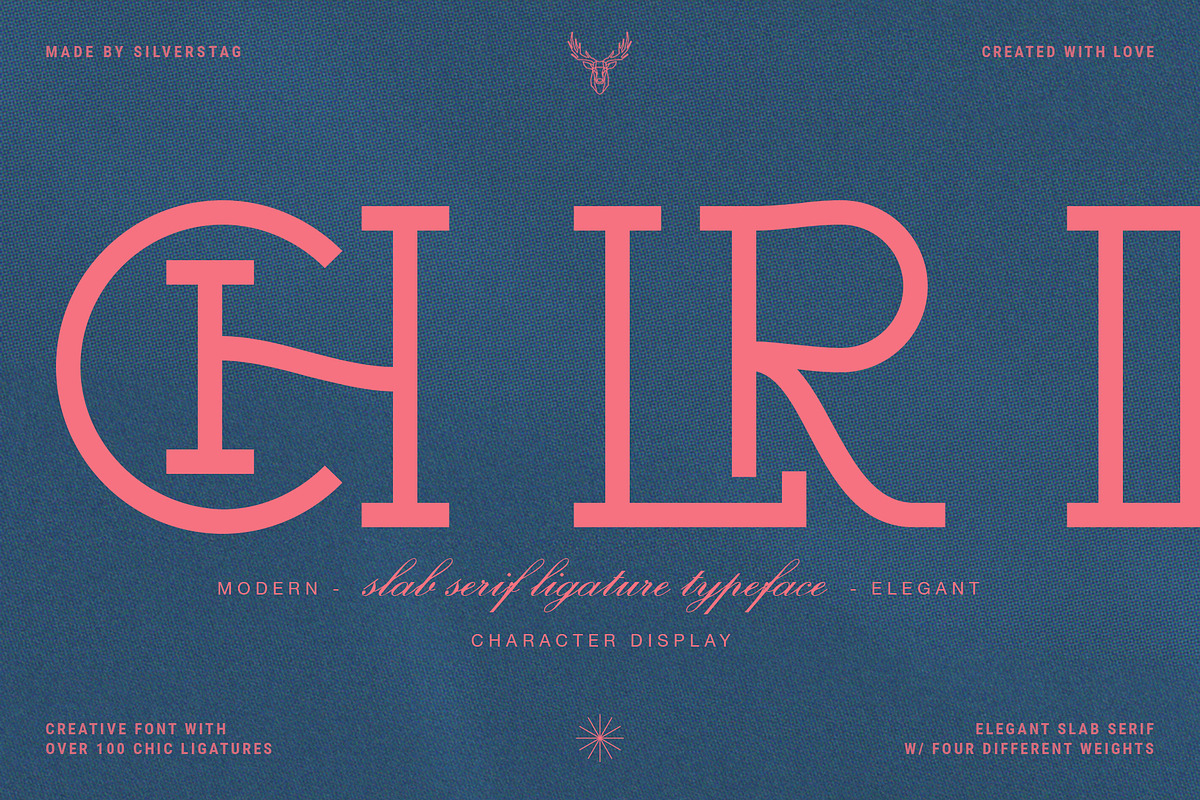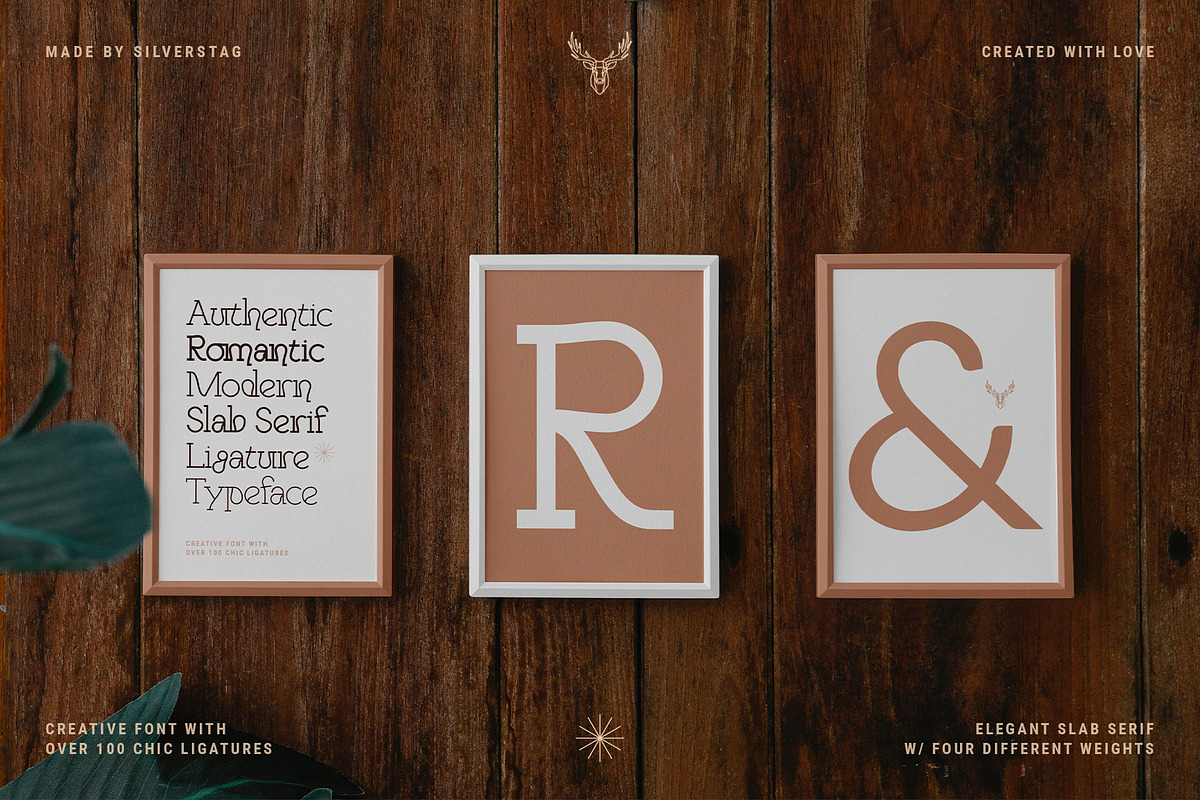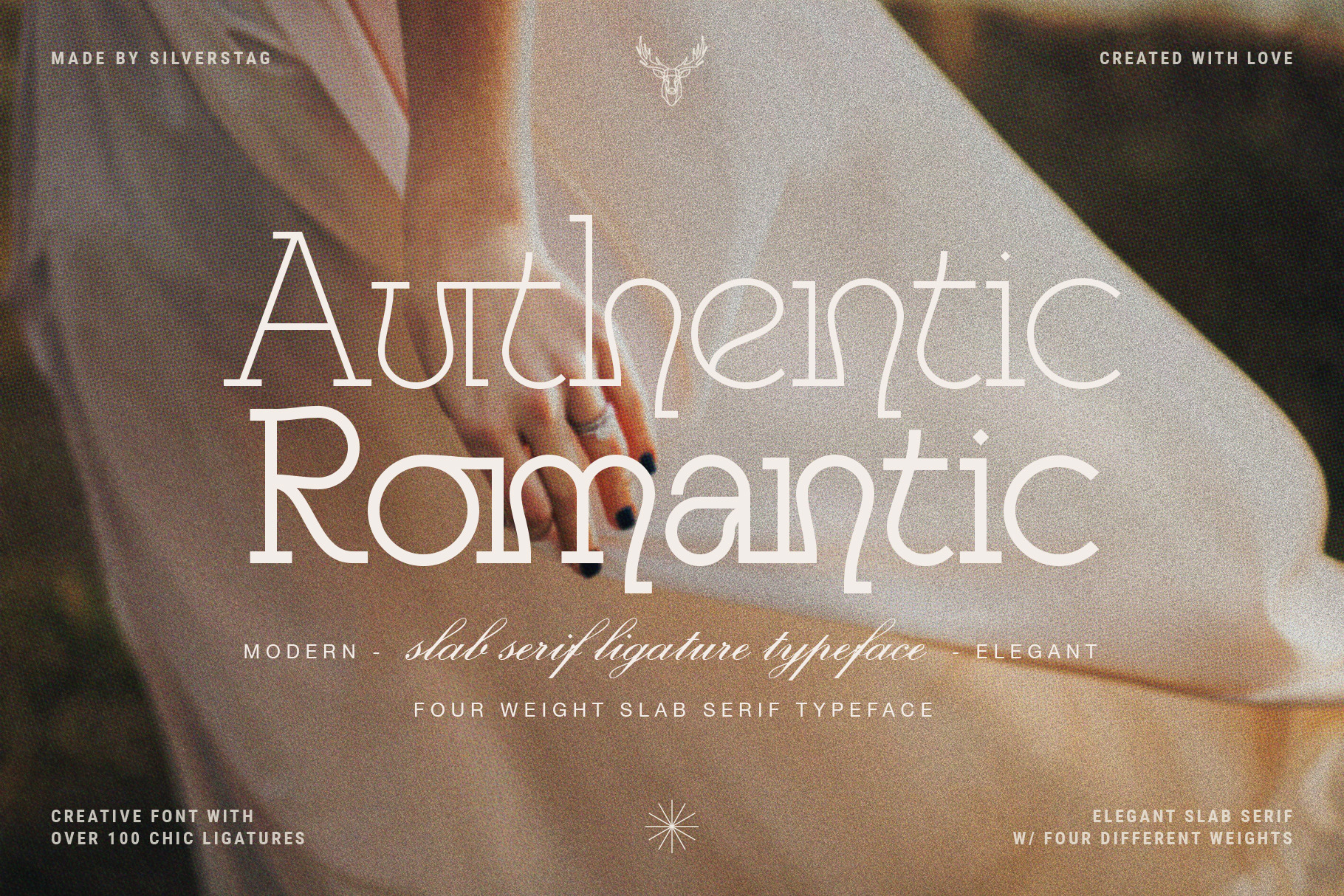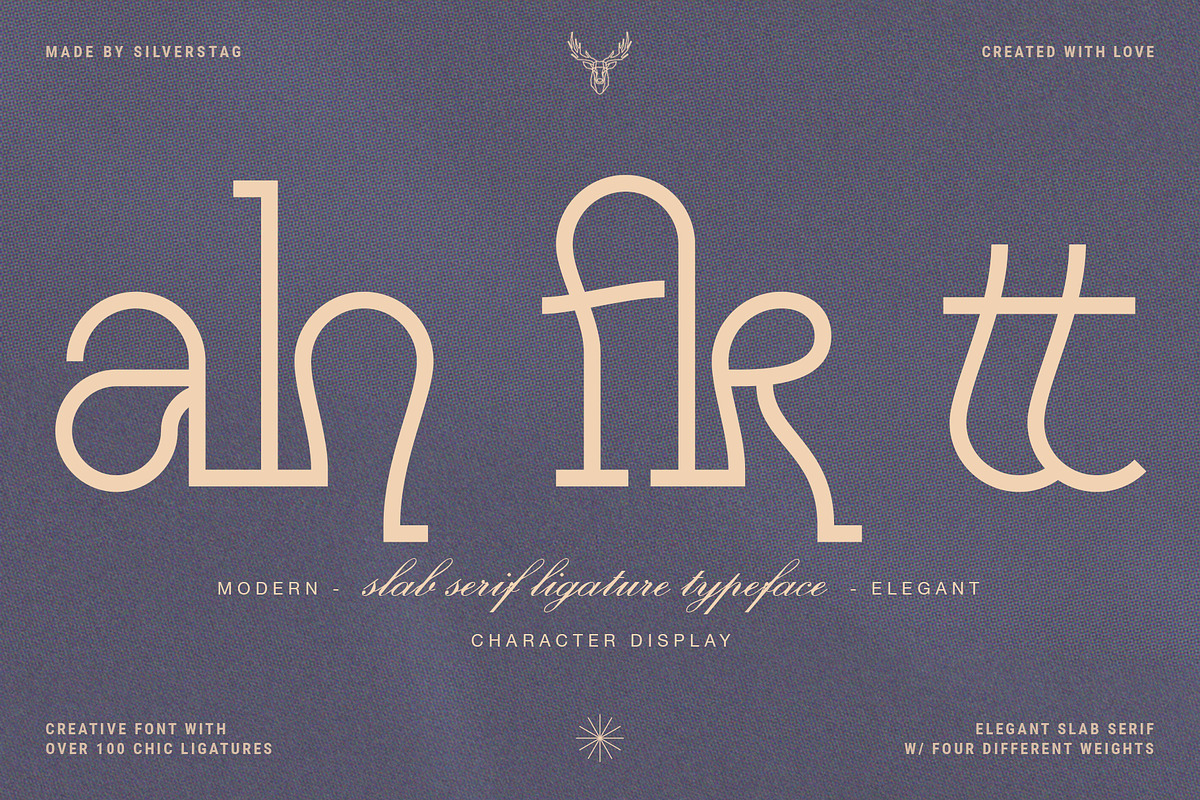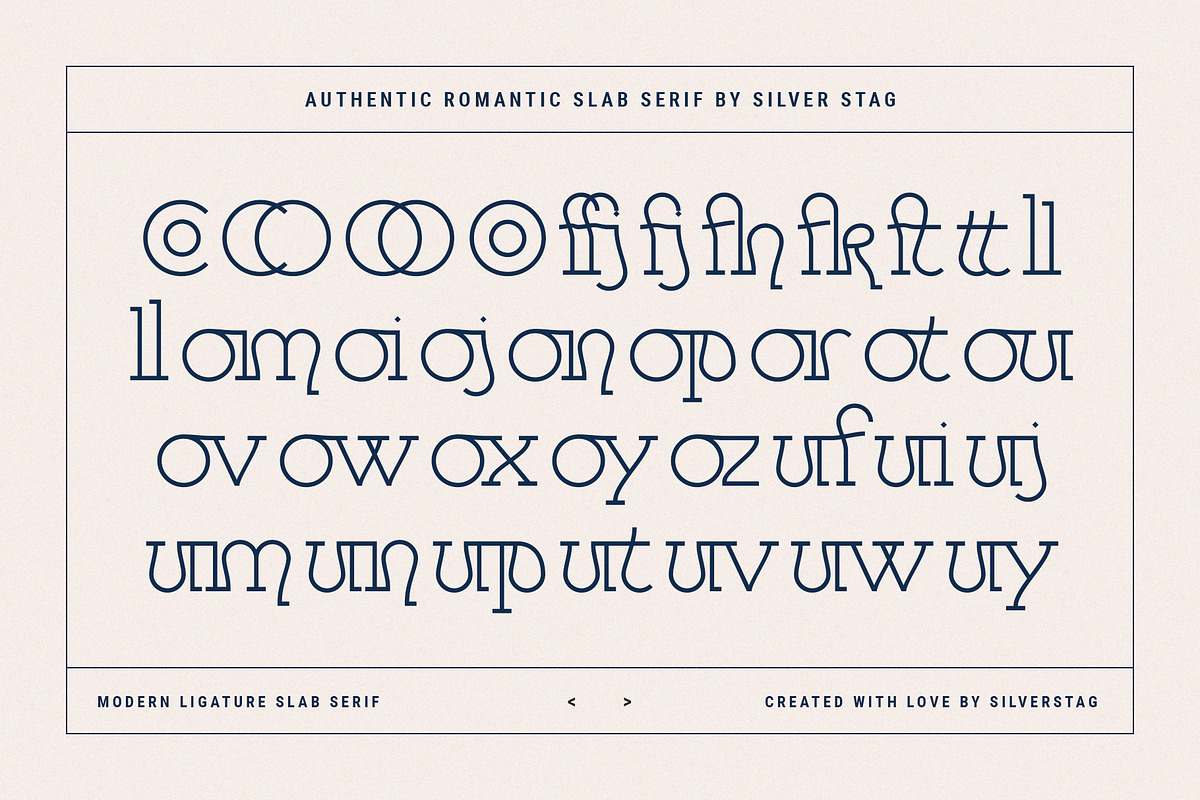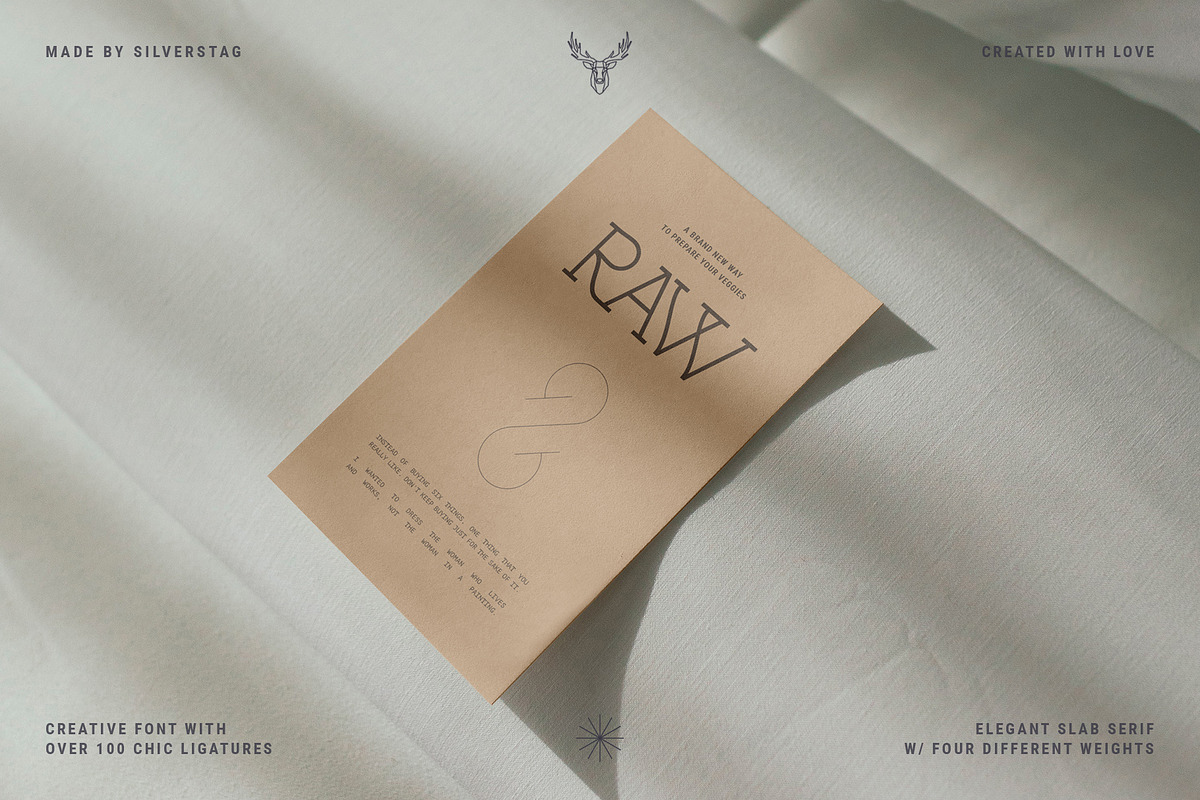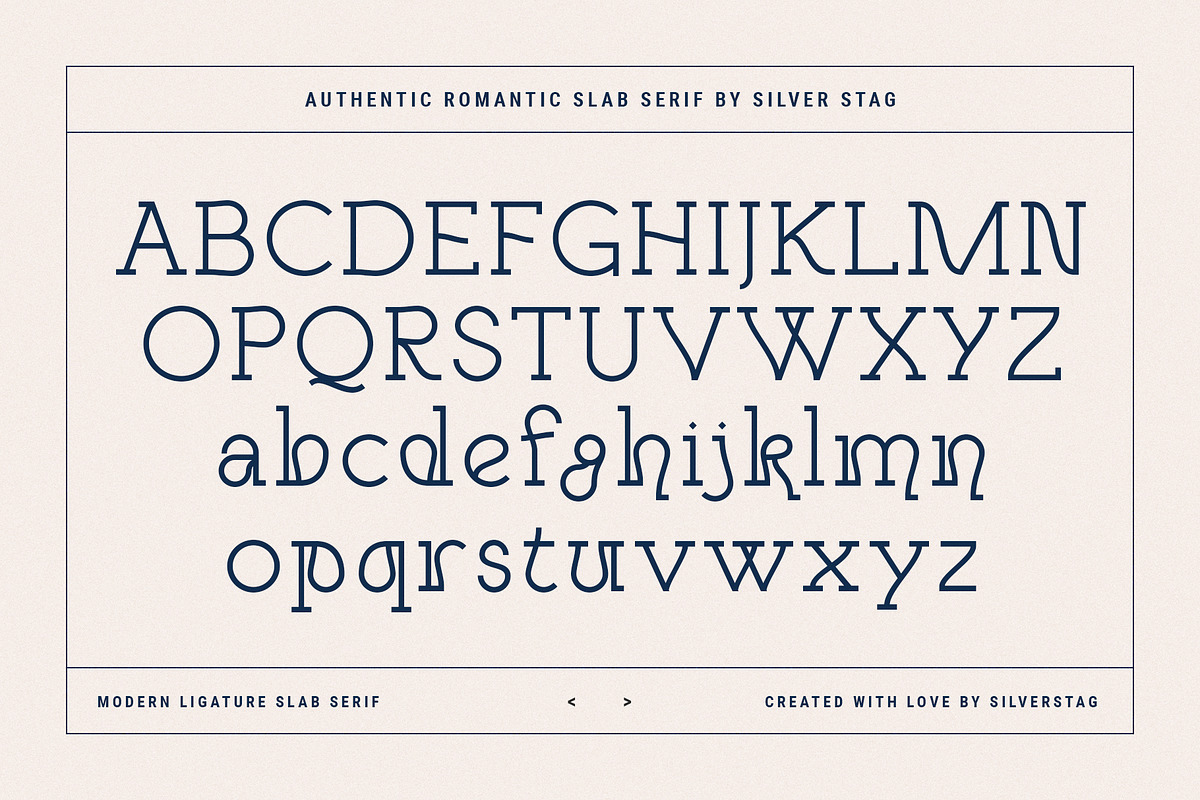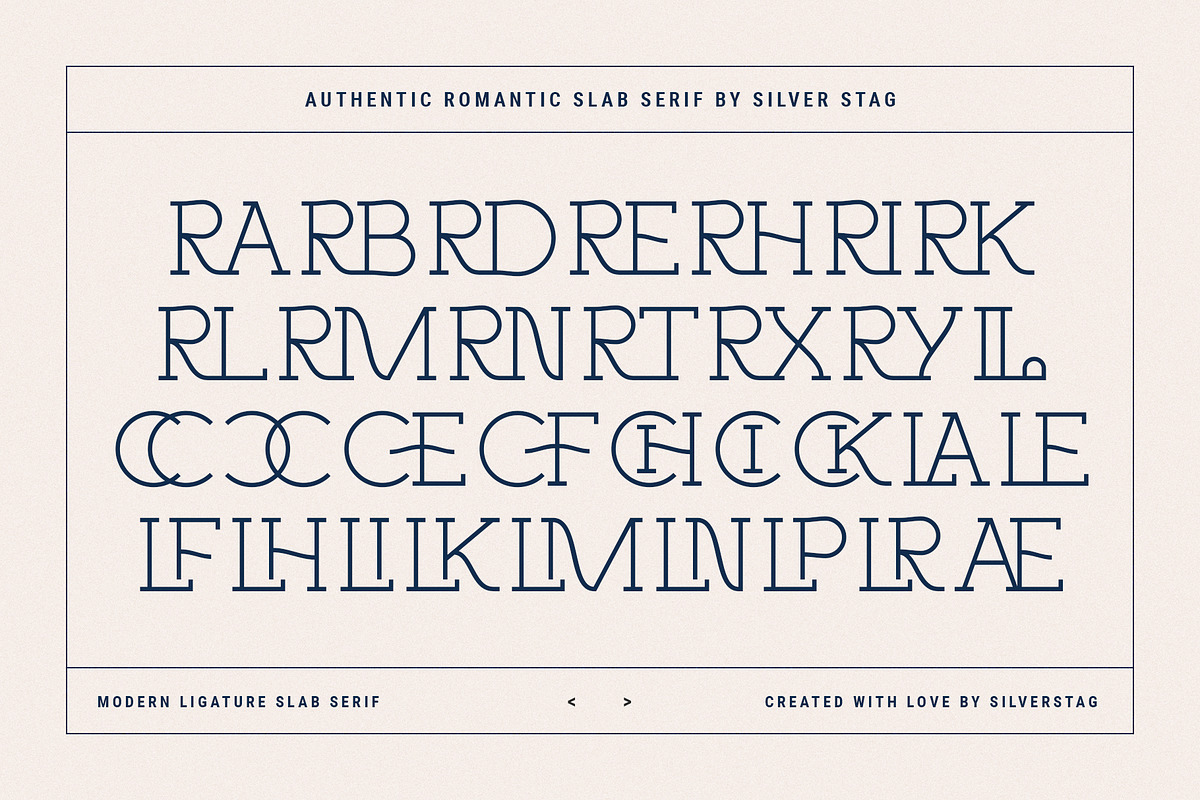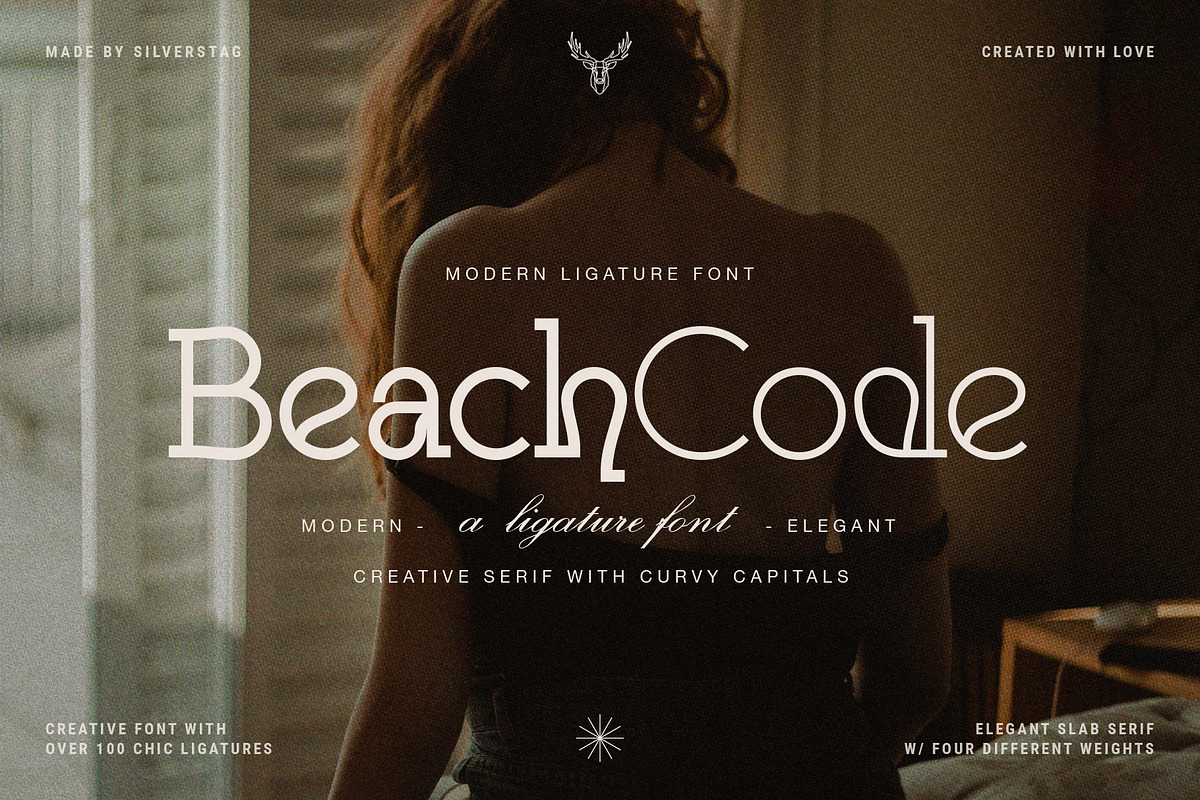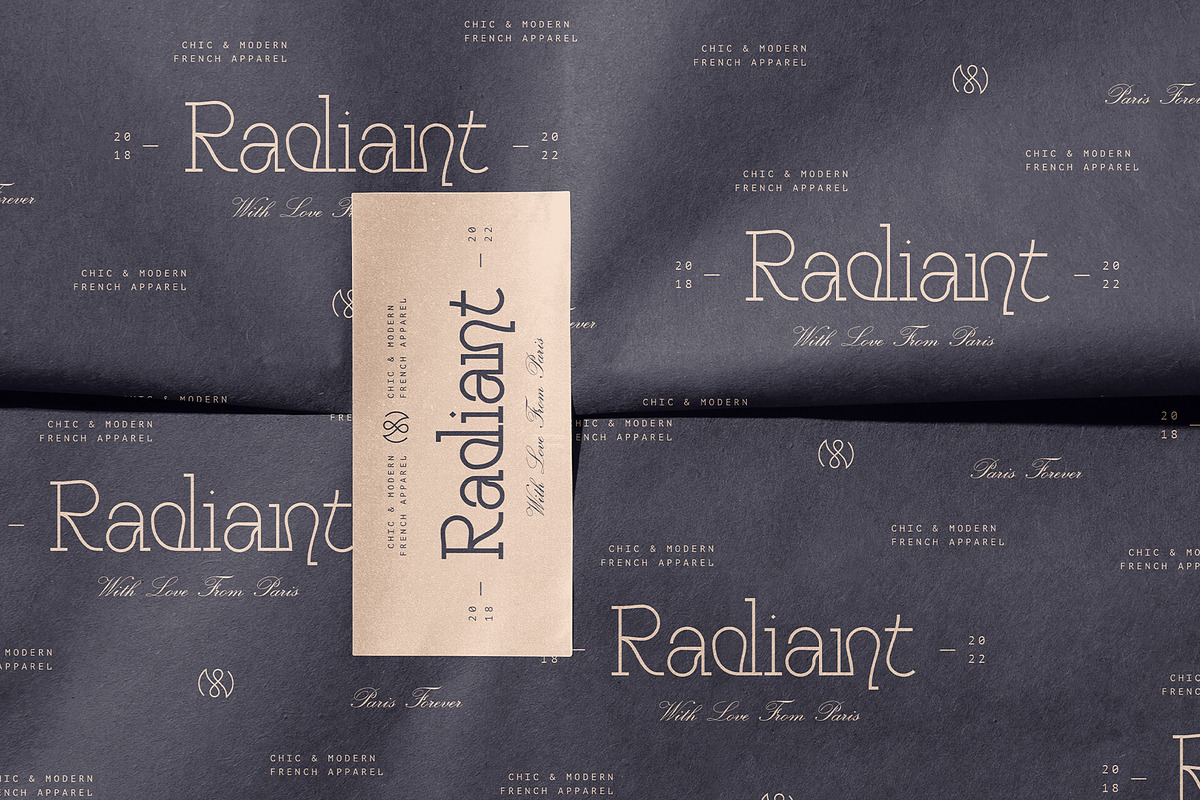
Authentic Romantic - Slab Serif Font
A brand new year is here and a brand new font is here as well. I have to say I had so much fun working on this funky slab serif typeface. I have created some quirky letters and over 100 ligatures + the font comes in four weights - light, regular, medium & italic.
The font also includes full language support, punctuation, numerals and detailed instructions how to use ligatures in most of the apps on your computer, as well as in Canva.
I invite you to check out the preview images, and I hope you will be immersed in my vision for this creative typeface that, I am sure, will work for all kinds of interesting projects you might be working on this year.
- 100+ Ligatures